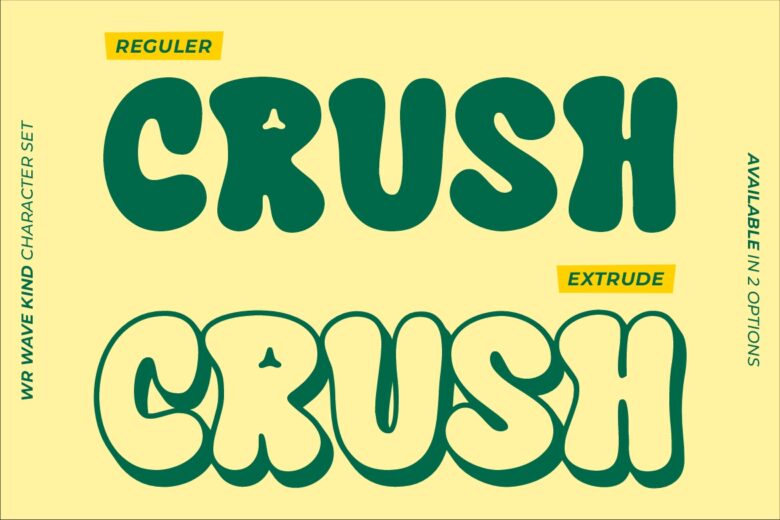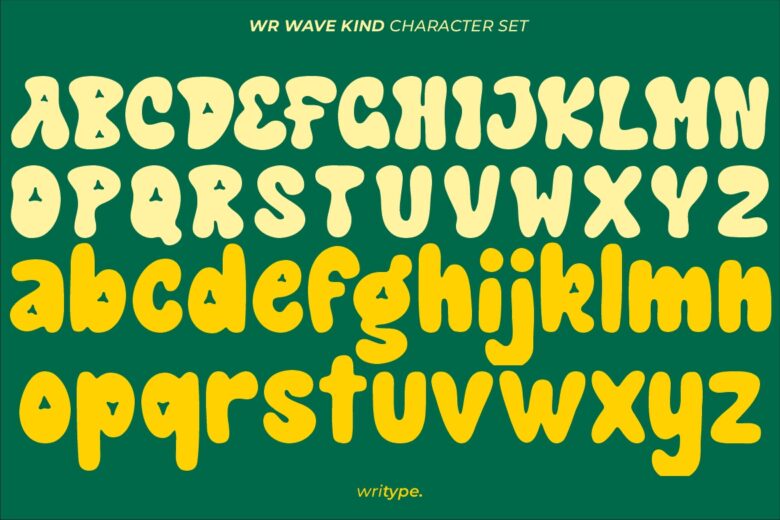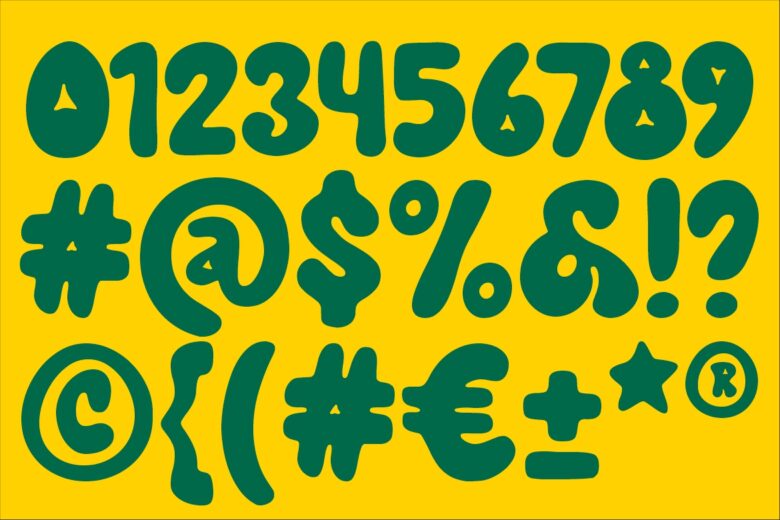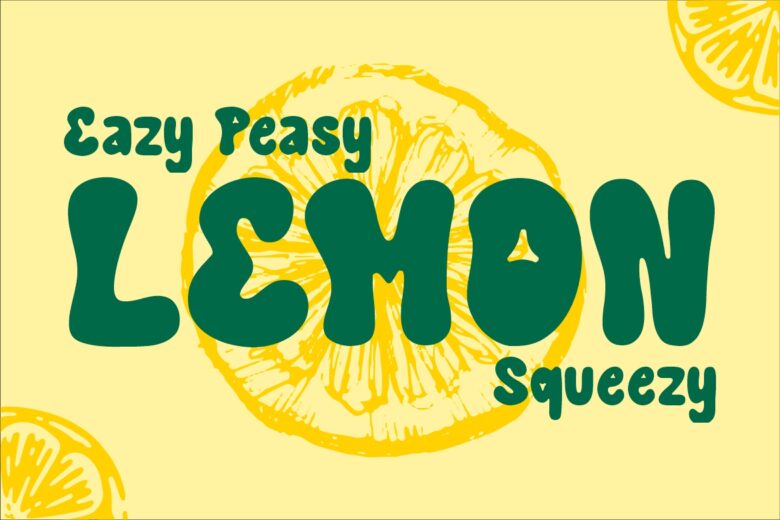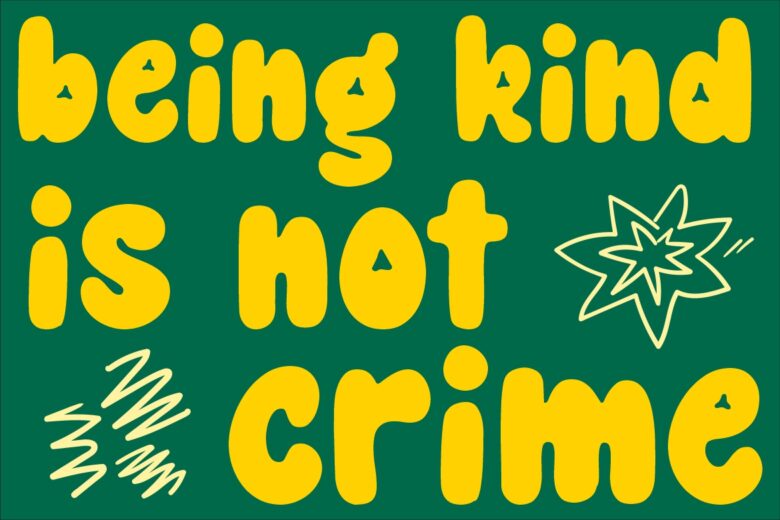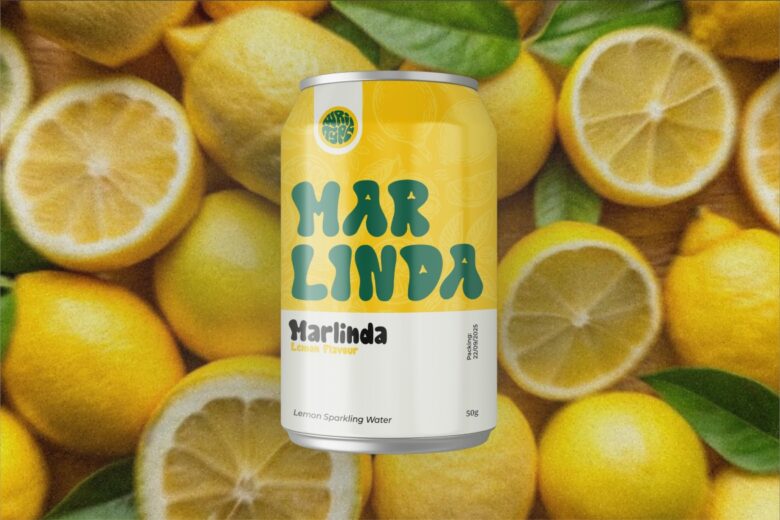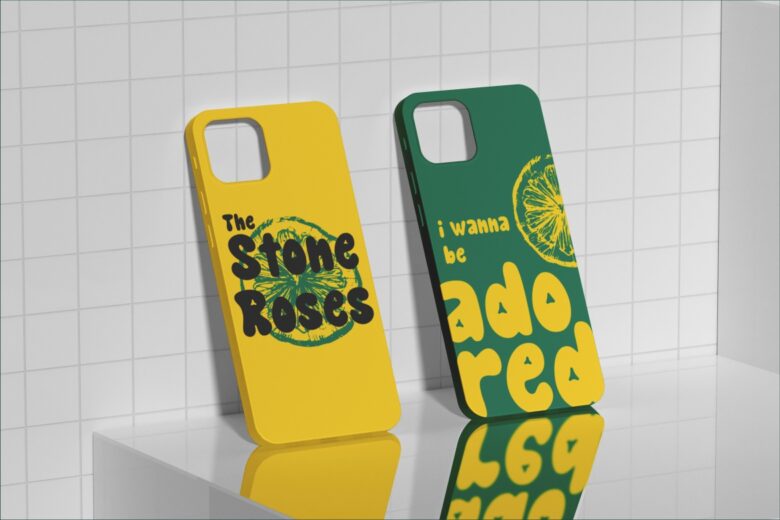
WR Wave Kind
WR Wave Kind Extrude
WR Wave Kind is a thick, hand-drawn display font with a bold, slightly curved style that adds a dynamic and playful touch. Available in Regular & Extrude, it is perfect for posters, branding, headlines, and more, bringing character to any design.